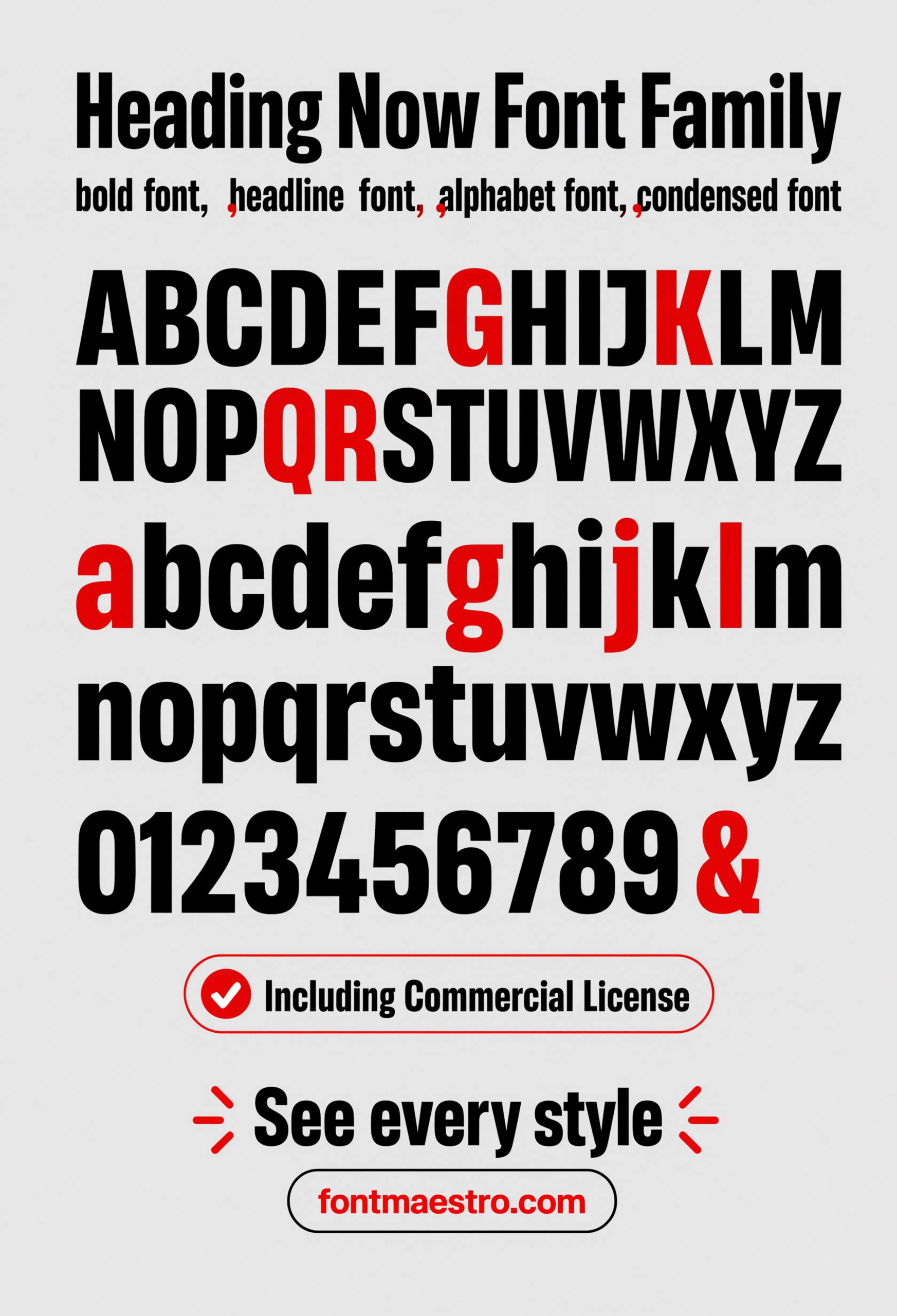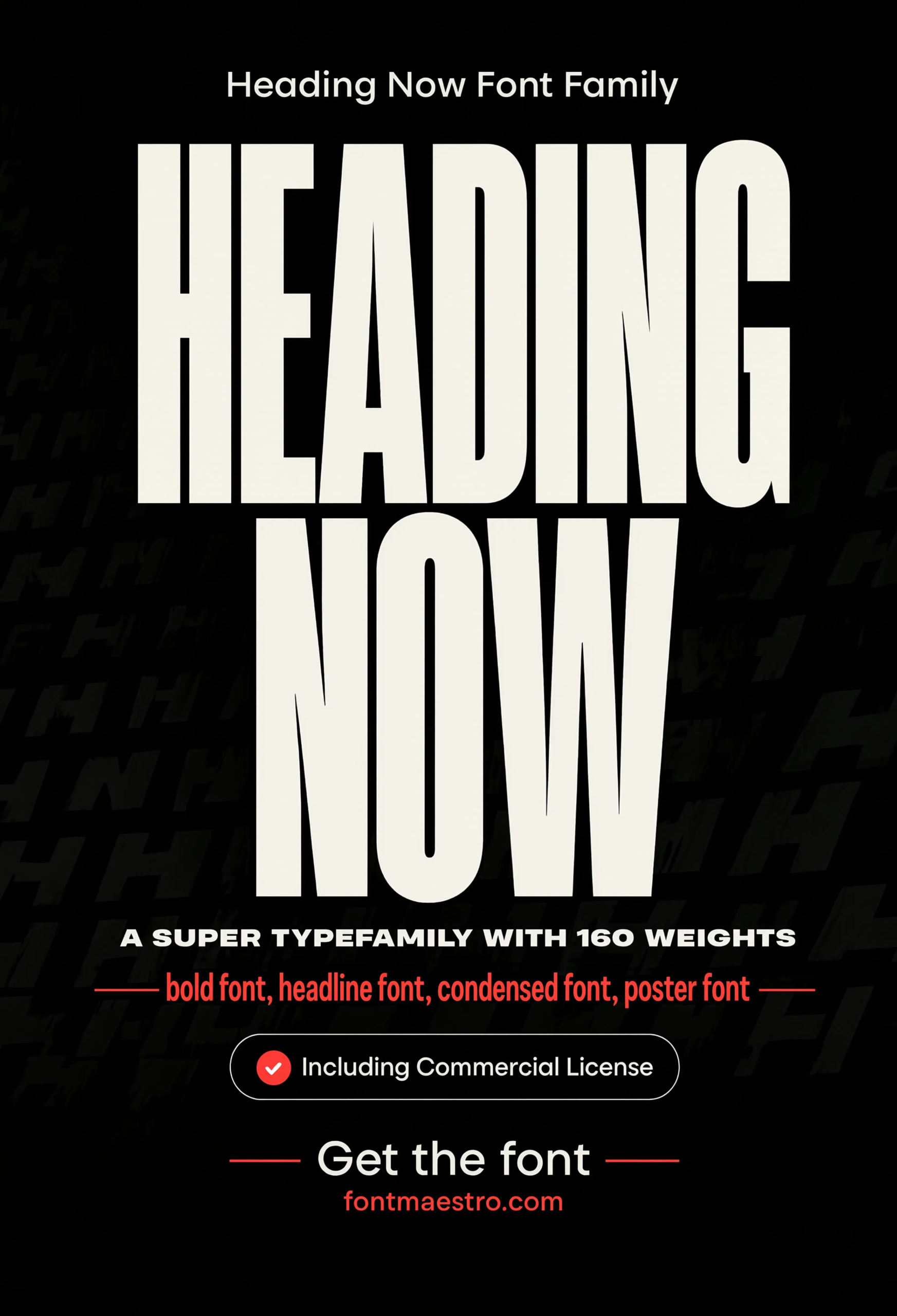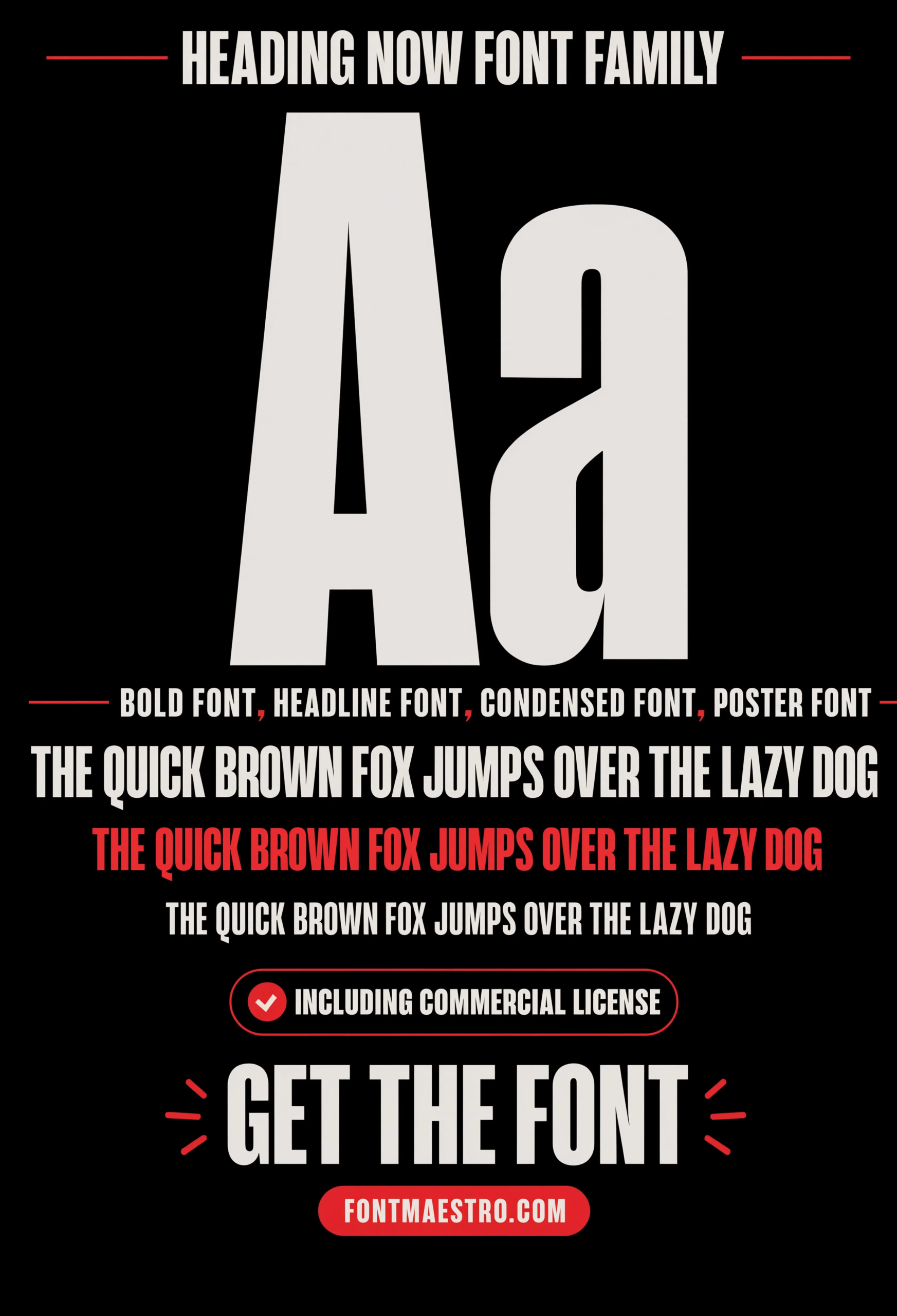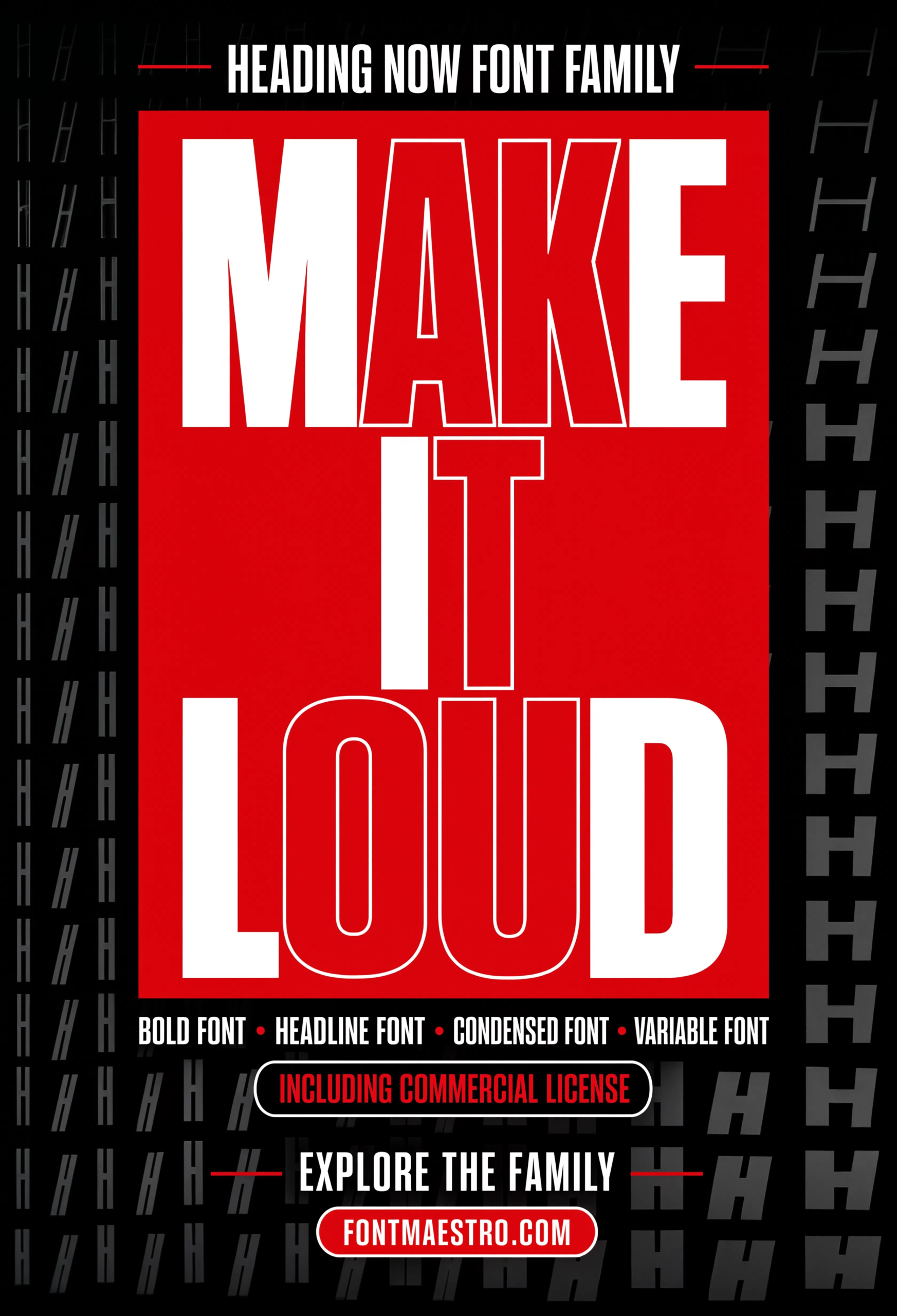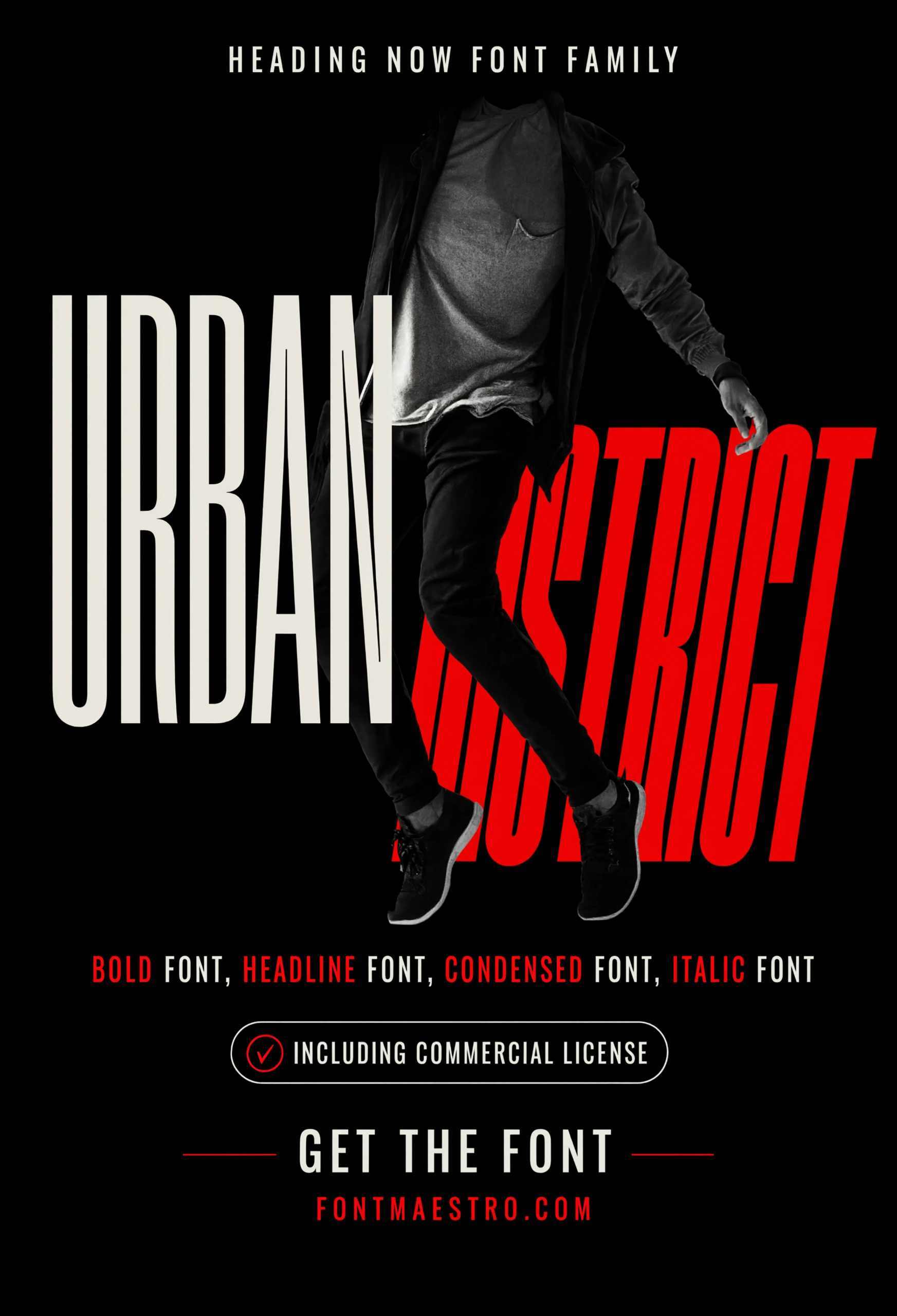
A bold headline typeface has one job — hold its weight and shape while a reader’s eye moves fast across a poster wall, a magazine spread, or a tour flyer pinned between a dozen others competing for the same glance. Heading Now was built specifically for that job: a display family with an unusually wide width range alongside its weight range, so a bold headline can be pushed wide for a banner or condensed for a tight column without losing its character.
That width-and-weight combination is what separates a genuinely bold font style name from a typeface that’s just been set heavier in a design tool — the letterforms were drawn to carry that weight, not stretched into it.
Quick answer: A bold font style name should mean a display typeface drawn with true heavy weights and a wide range of widths, not a regular weight artificially thickened. Heading Now fits this because its width and weight axes were built together, so a headline stays legible and structurally sound whether it’s set condensed in a narrow column or expanded across a poster.
What Separates a True Bold Weight From a Fake One?
A genuine bold weight is drawn with its own letterforms — wider counters, adjusted stroke junctions, and spacing built for the heavier weight specifically. A fake bold, created by a design tool’s “bold” button on a regular weight, just thickens strokes uniformly, which often closes up counters and blurs details at small sizes. The alphabet specimen below shows Heading Now’s actual bold construction.
How Do Width and Weight Work Together in a Headline Font?
- Check the width range first — a family with condensed through expanded widths gives far more layout flexibility than weight alone.
- Match width to available space — condensed widths suit narrow columns and tight headlines, expanded widths suit banners and posters.
- Test italics separately — a true italic cut redraws the letterforms rather than just slanting them, which matters for editorial and magazine work.
- Confirm the weight ladder holds up at both extremes — the lightest and heaviest weights should share the same underlying structure.
The full character set at a heavy weight — the fastest way to confirm the counters stay open and the letterforms hold their structure at true bold weight.
A full-width hero headline treatment — this is the scale a bold font style name is actually built for, dominating a page rather than sharing it.
A full pangram sentence in a single bold weight — the quickest way to spot spacing or counter problems a short word or logo test would miss.
A bold color-block composition pushes the heavy weight into a high-contrast display moment, testing legibility at maximum visual intensity.
An urban environment mockup shows the bold headline style applied to signage-style type — a useful comparison point for outdoor legibility.
Where Does a Bold Headline Font Get Tested Beyond a Poster?
A magazine spread and an urban signage mockup are two of the more demanding real-world tests for a bold display face — one has to sit next to running body copy, the other has to hold up against outdoor viewing conditions. Both are shown above.
Does a Wide Width Range Matter as Much as Weight?
Often more than designers expect. A single bold weight with no width flexibility forces awkward line breaks or forced resizing whenever the available space changes. A family built with condensed, regular, and expanded widths at each weight lets one typeface adapt to a banner, a column, or a square social post without ever looking stretched.
- A genuine bold weight is drawn with its own letterforms, not created by digitally thickening a regular weight.
- Width range matters as much as weight for layout flexibility across banners, columns, and posters.
- Test any bold display font at real headline scale, not just on a specimen sheet, before committing to a project.